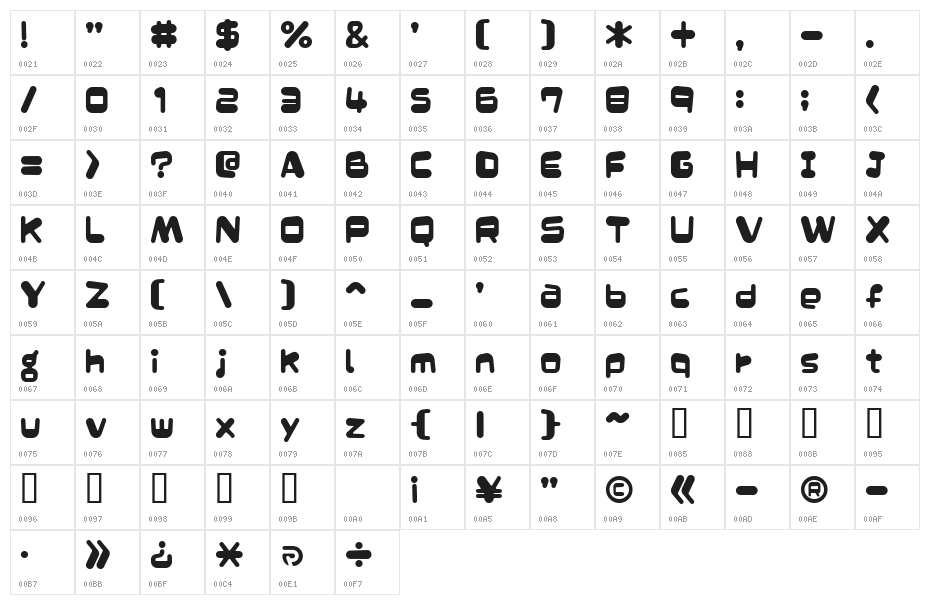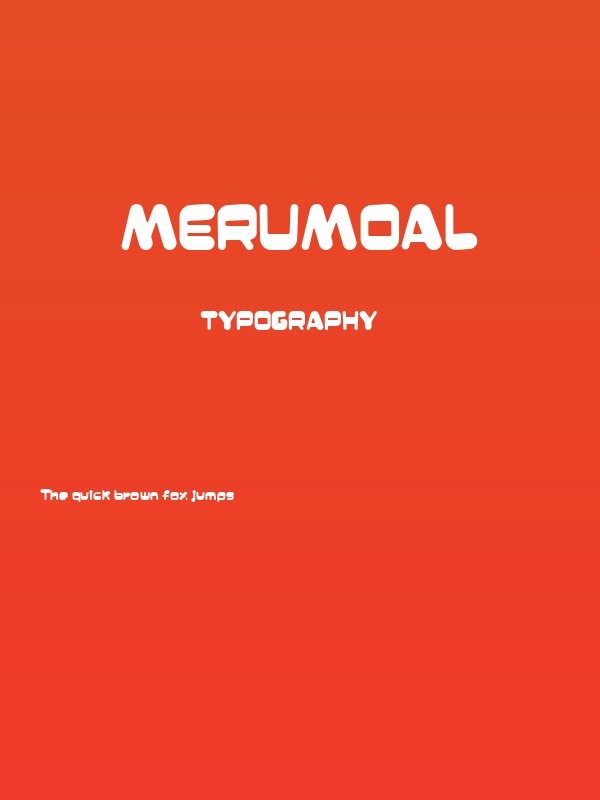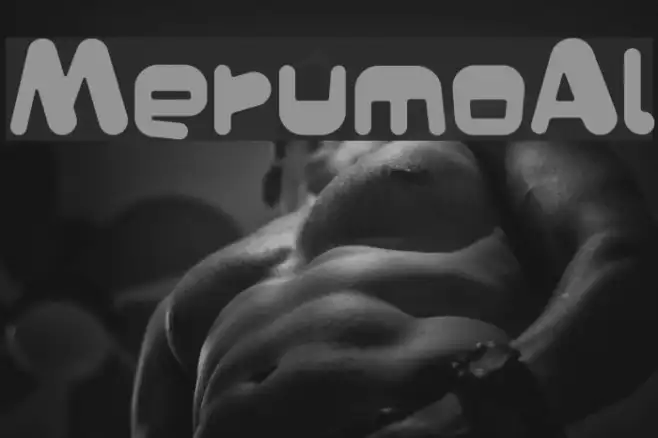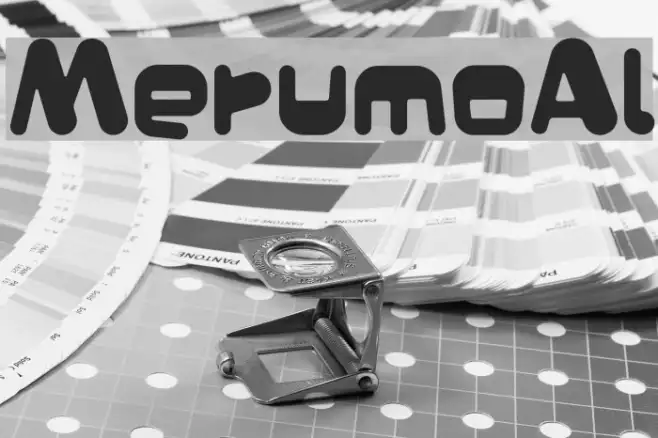
MerumoAl Font
MerumoAl Description
This font features a bold and rounded style with a playful and modern appearance. The characters are thick and have a uniform stroke width, giving them a strong presence. The rounded edges and smooth curves create a friendly and approachable look, making it suitable for designs that aim to convey warmth and creativity. The uppercase and lowercase letters maintain consistent proportions, while the numerals and special characters align seamlessly with the overall aesthetic. This font's unique style makes it ideal for eye-catching headlines and branding projects.